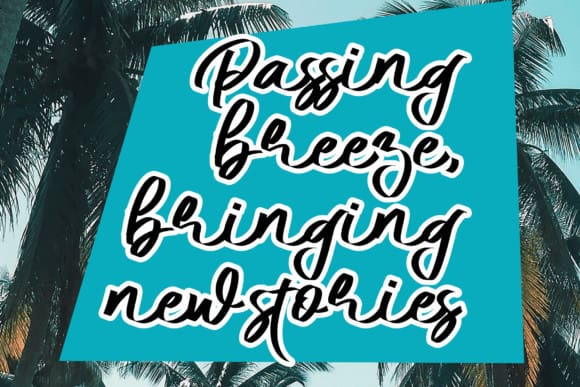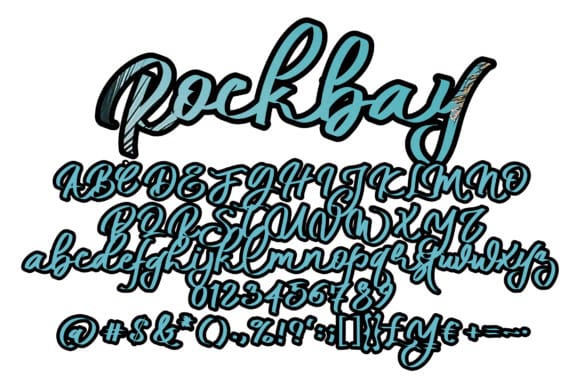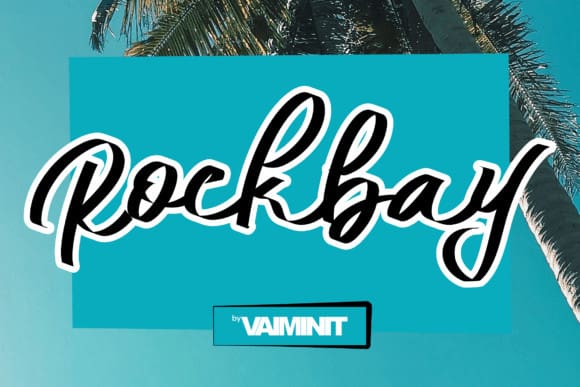
Rockbay Script Font
Rockbay Script Font is a captivating retro-style handwritten font. Delight your eyes with its beauty and create stunning designs. This font is PUA encoded, so you can easily access all its glyphs and swashes!